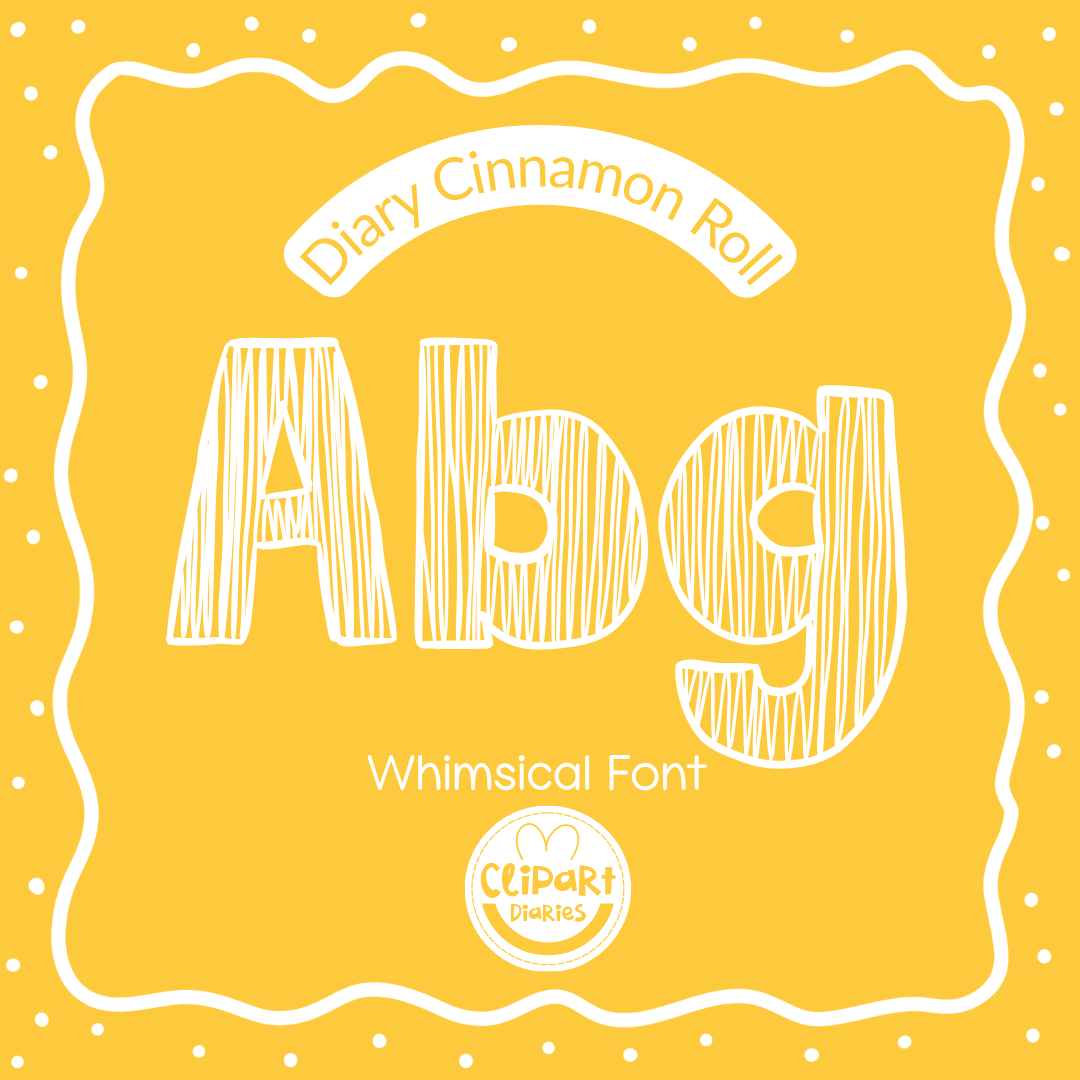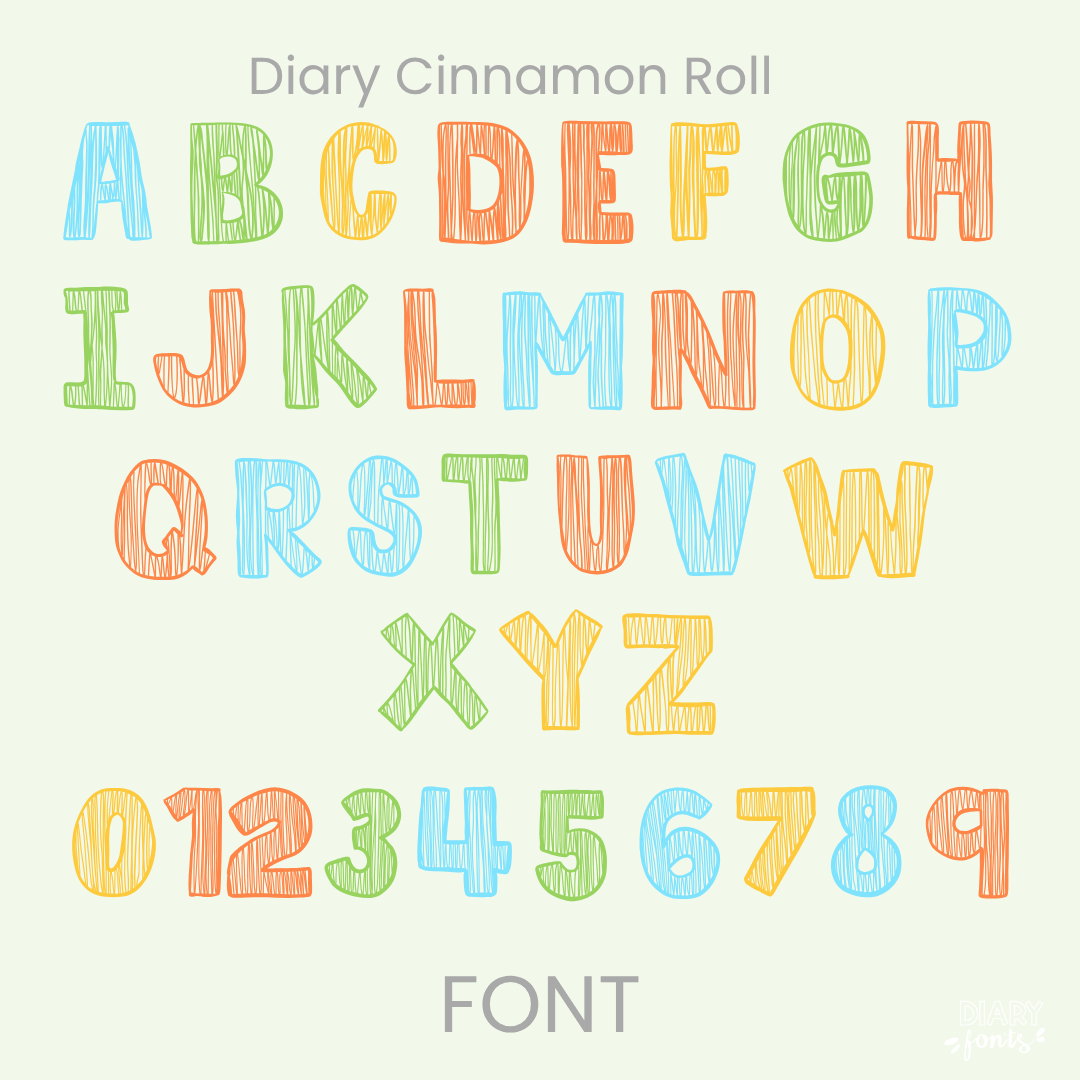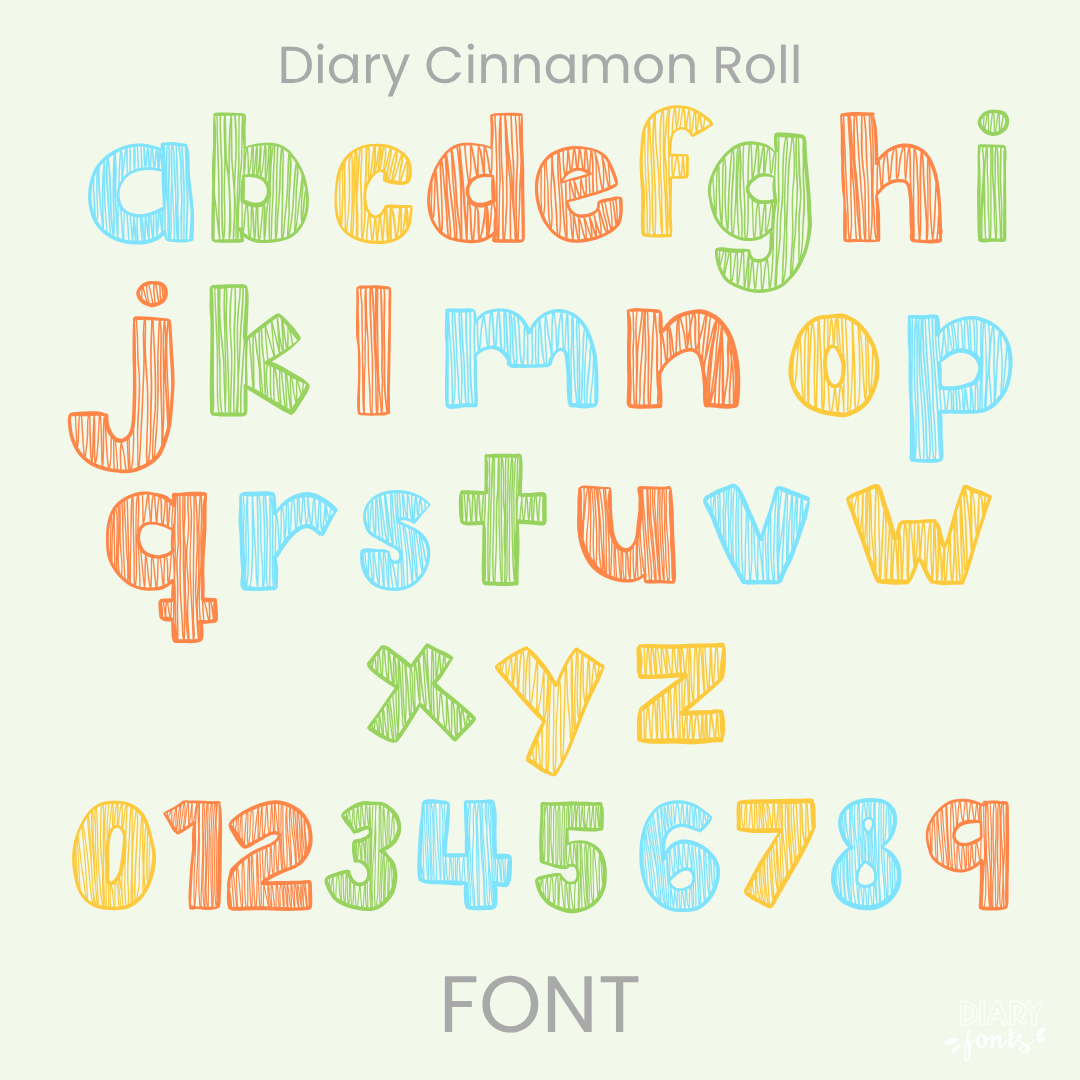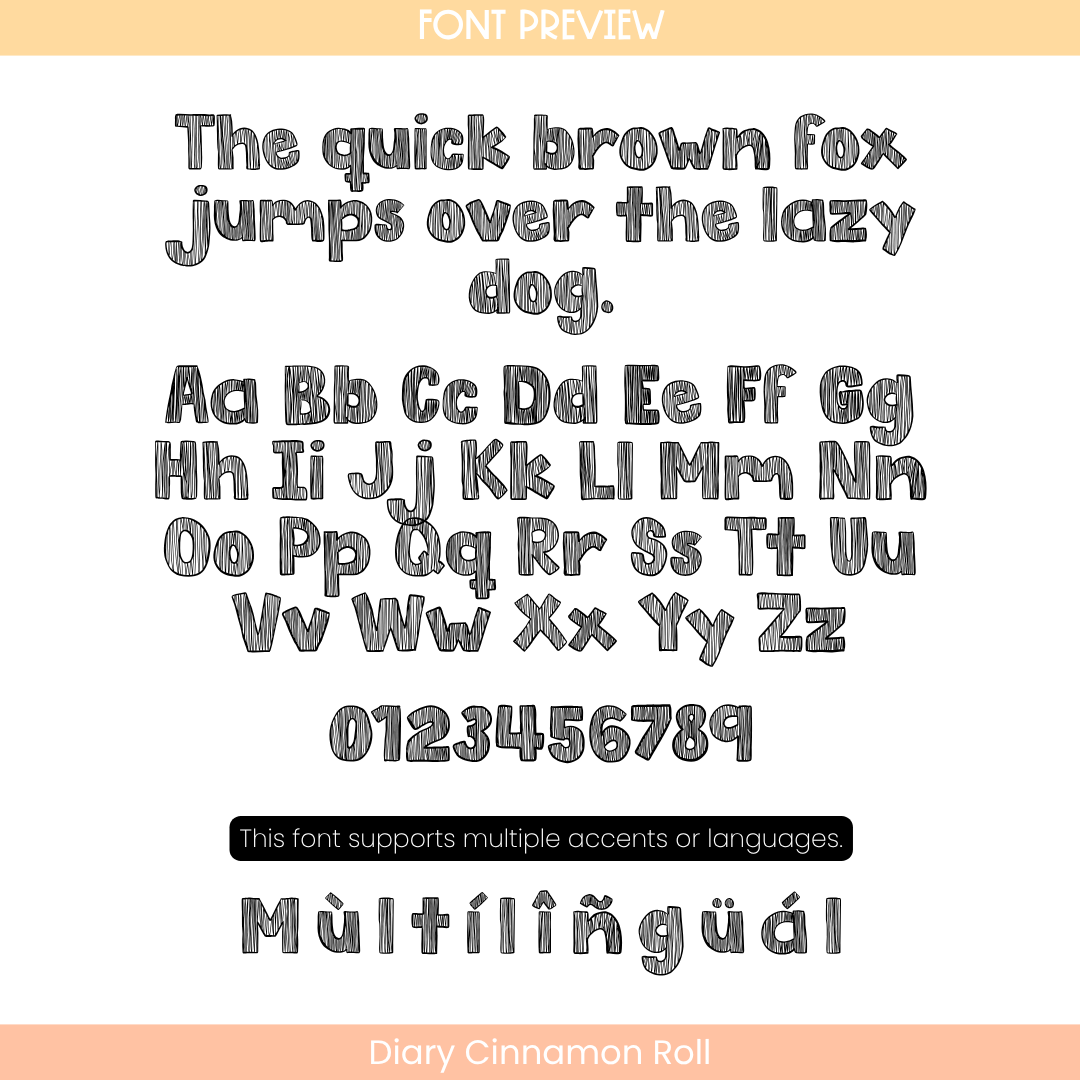
Diary Cinnamon Roll Font
The Diary Cinnamon Roll is a cute, whimsical handwritten font designed to bring a playful and creative touch to your digital resources and classroom materials.
If you want to give your projects a cheerful and friendly look, Diary Cinnamon Roll is an excellent choice. It features light, bouncy handwritten characters that mimic a carefree, sketched style while remaining incredibly easy for students to read. This makes it a wonderful option for fun classroom decor, morning meeting slides, and creative worksheets. The font includes a full set of uppercase and lowercase letters, numbers, and multiple accents to support different languages. It is ready for use in Canva, MS Office, and Adobe Apps, and it works perfectly with iPad apps like GoodNotes and Procreate. Whether for personal classroom use or commercial resources, this font adds a charming and approachable aesthetic to your work.